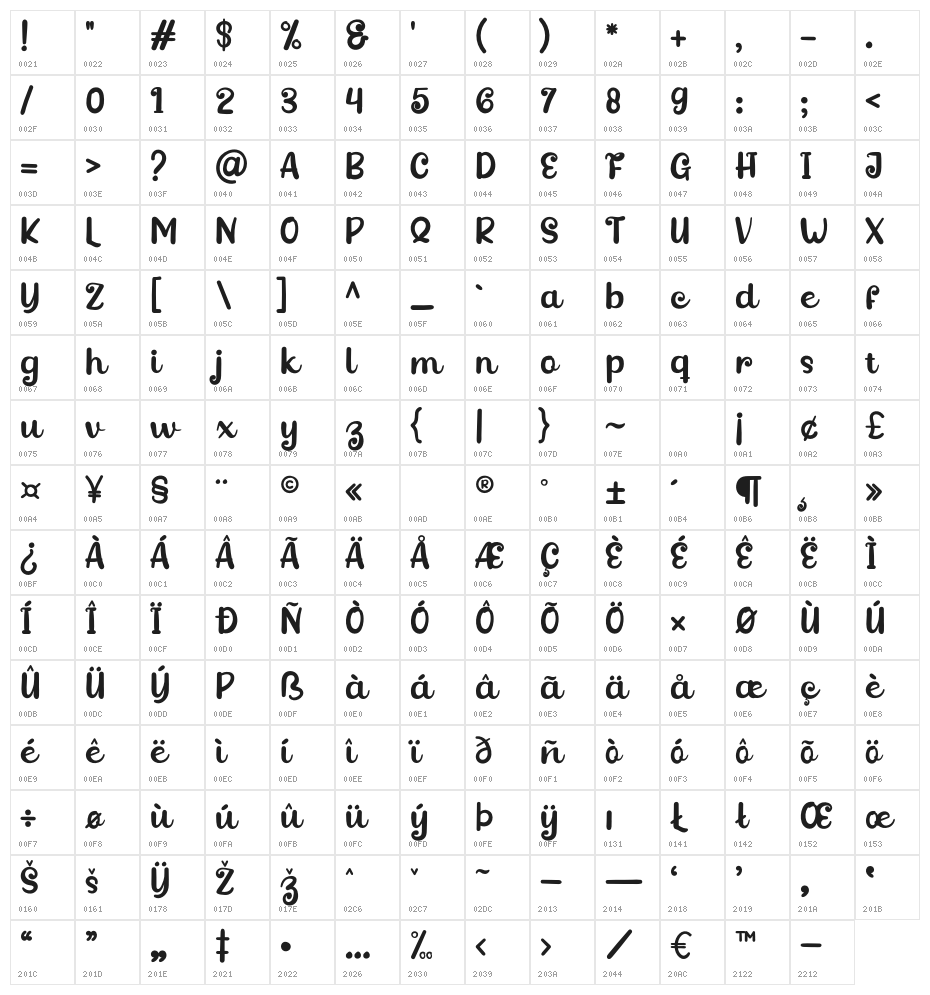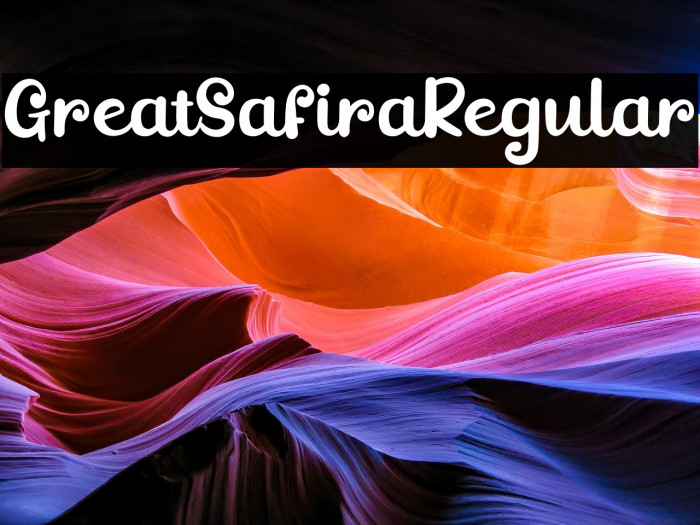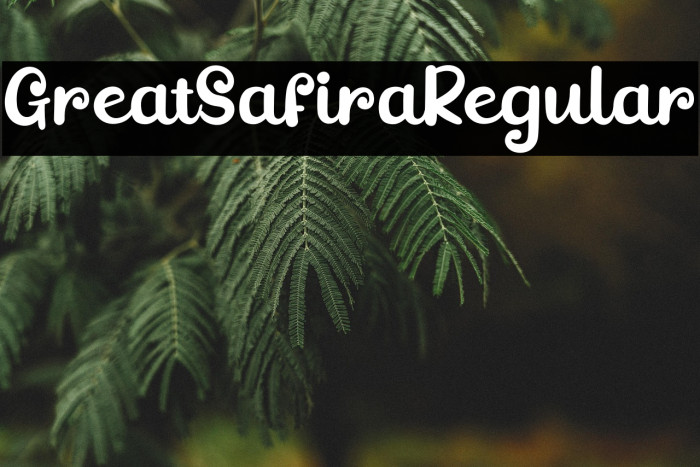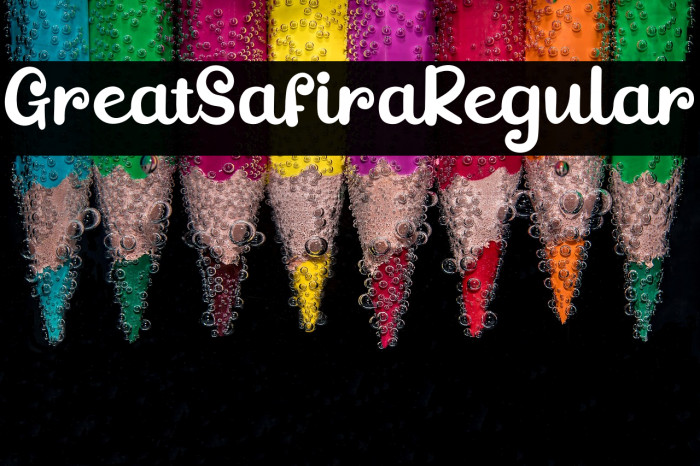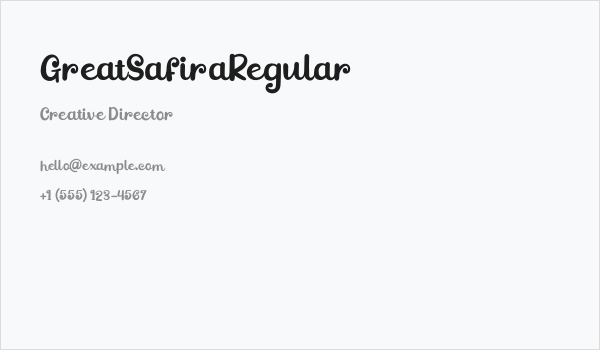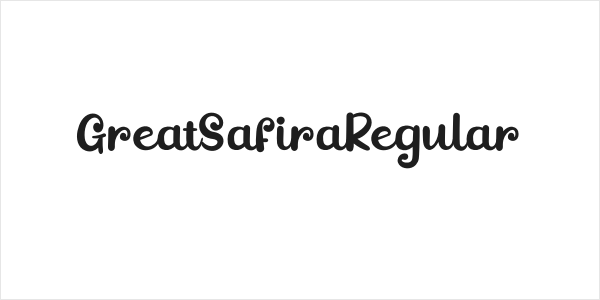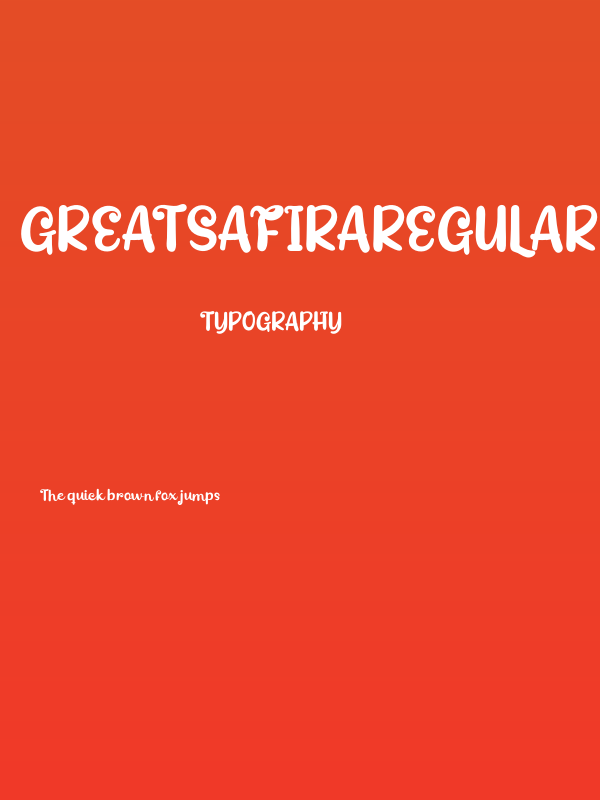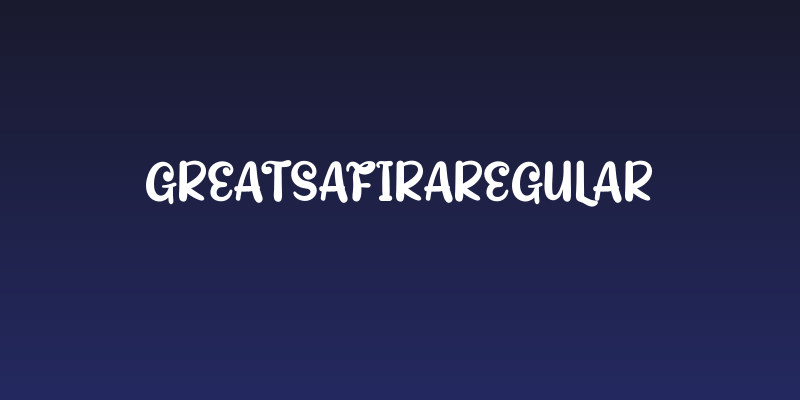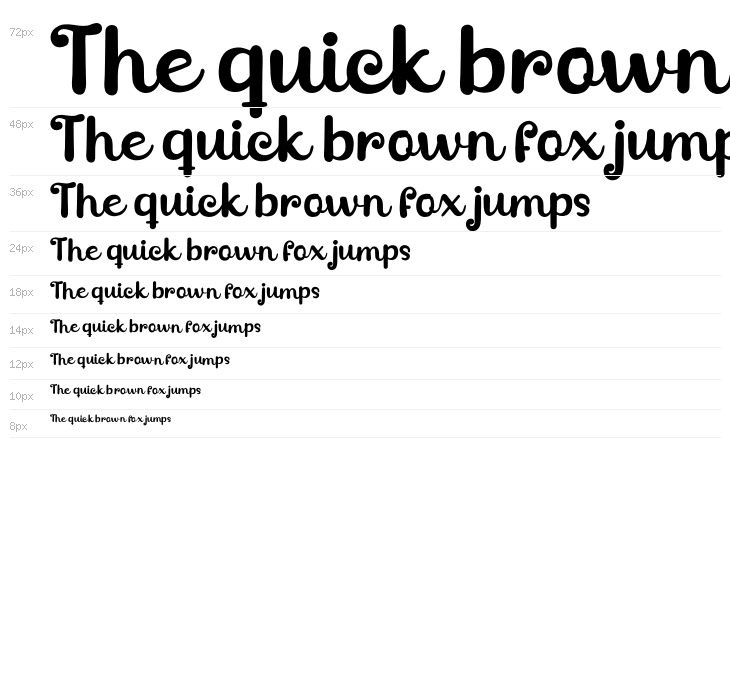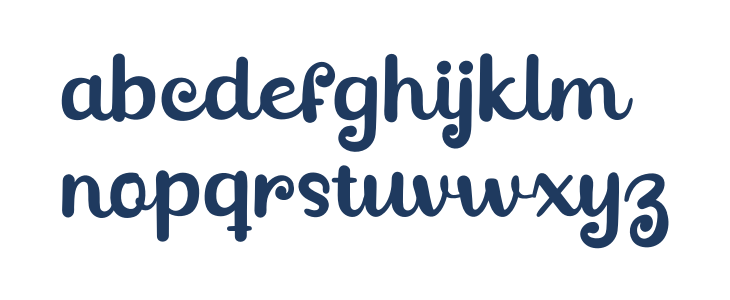
GreatSafiraRegular Font
GreatSafiraRegular Description
This font features a playful and bold script style, characterized by its rounded and flowing letterforms. The uppercase letters are slightly more structured, while the lowercase letters exhibit a more casual and connected appearance. The numbers and special characters maintain the same playful aesthetic, making the font versatile for various creative applications. Its bold strokes and smooth curves give it a friendly and approachable feel, suitable for projects that require a touch of whimsy and charm.
| Proposed Projects | Ideal for children's books, playful branding, greeting cards, and creative posters. |